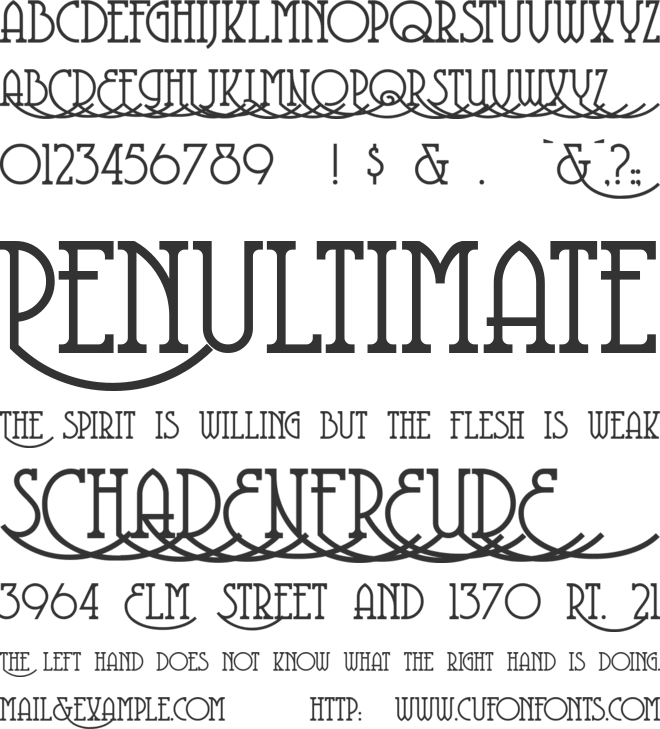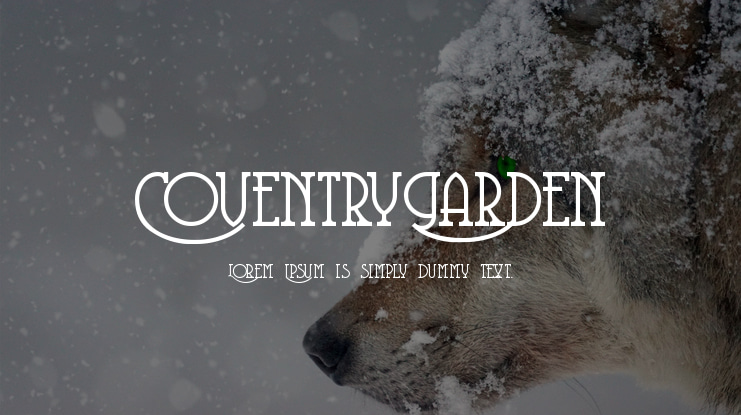
CoventryGarden Font Family
I came across this particular treatment for swash caps in an old book on letterhead design. The original had been handlettered, but I though it might be convenient to have a ready-made font to accomplish the same effect, and here it is. As an extra added feature, the “@” sign is an ampersand with a long tail.